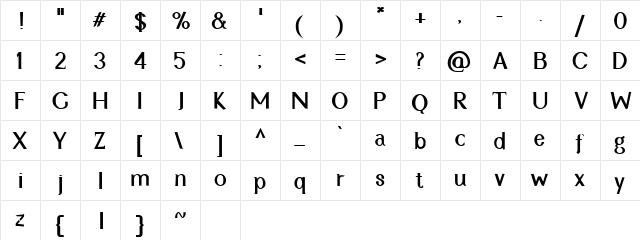
Cyn Bold Free Font
Cyn Bold
Cyn Family
Design Context for Cyn
Cyn is a composed and adaptable typeface that performs quietly and consistently across a wide range of design contexts. Its bold stroke weight gives it real presence on the page.